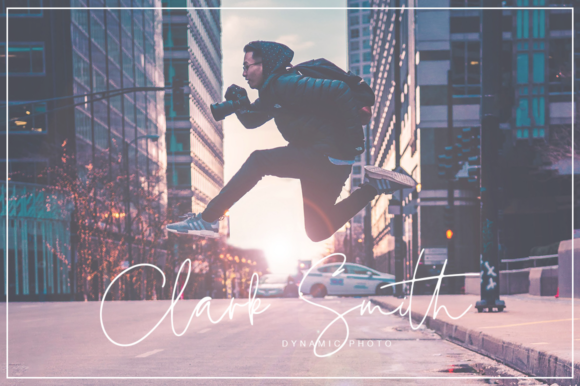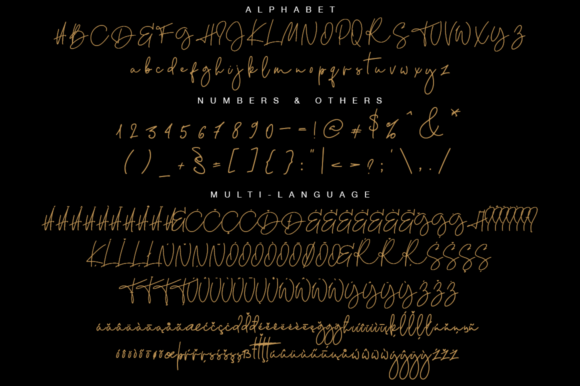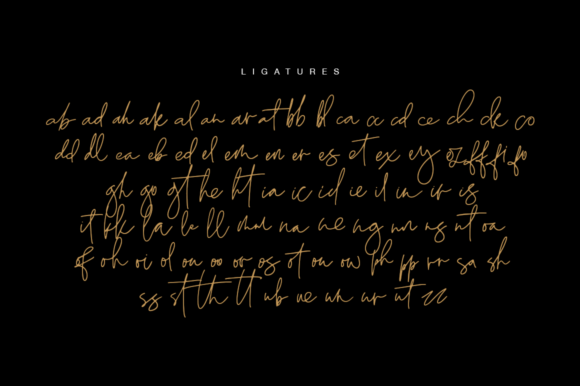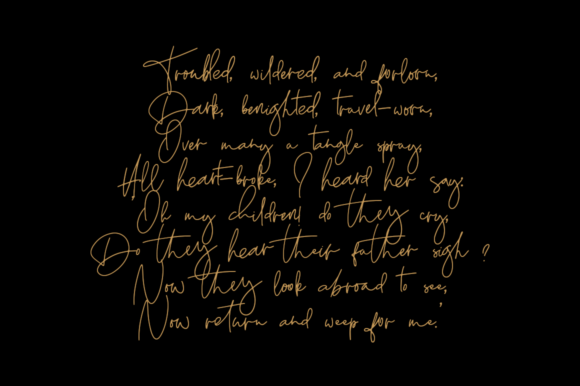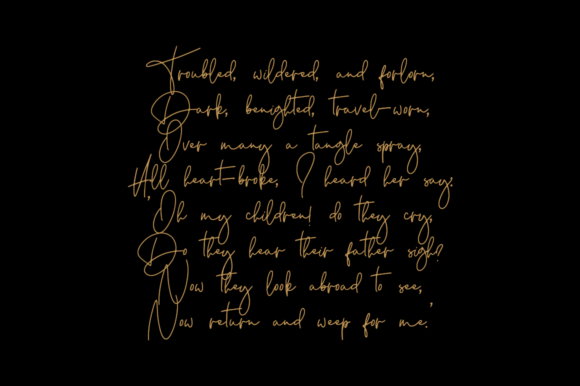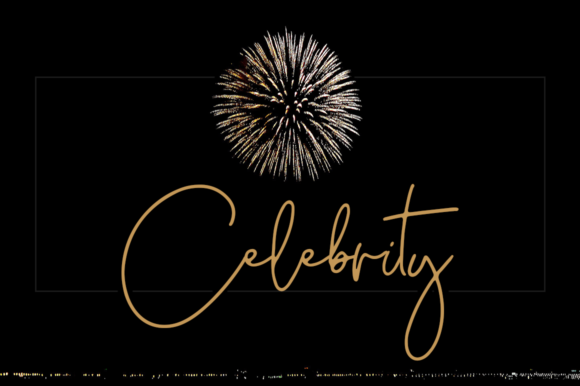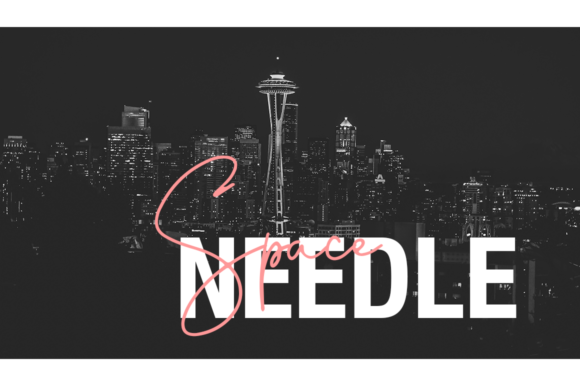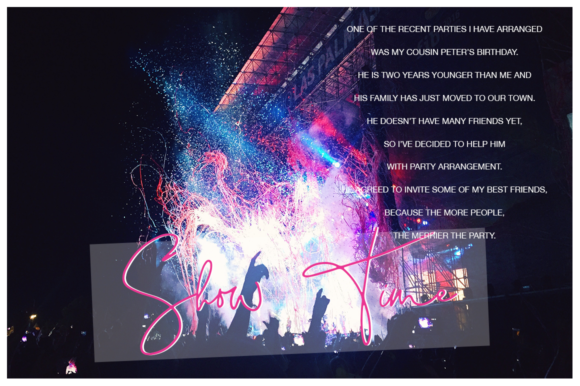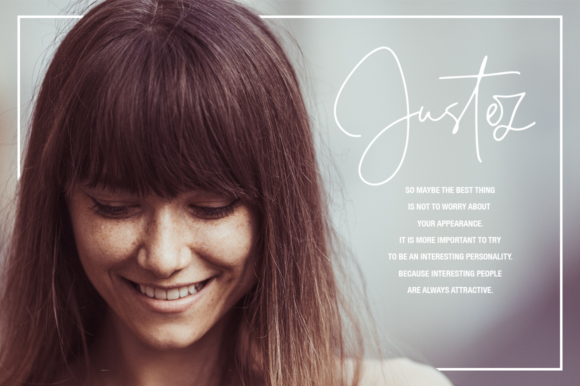
Claster Font
About Claster Font
The Claster is a new, fresh, handmade calligraphy font.
Very suitable for greeting cards, branding materials, business cards, quotes, posters, and more!